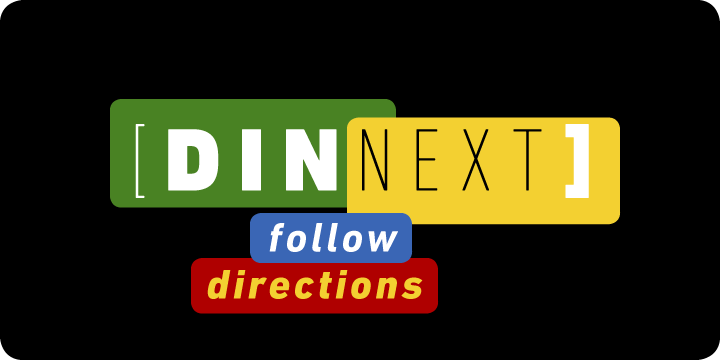
Din Next Contains 42 Styles And Family Package Options.
A sans serif typeface with 2 styles, available from adobe fonts for sync and web use. Akira kobayashi began by revising these two faceswho names just mean condensed and regularbefore expanding them into a new family with seven weights (light to black). Linotype on the other hand just launched their new din interpretation called.